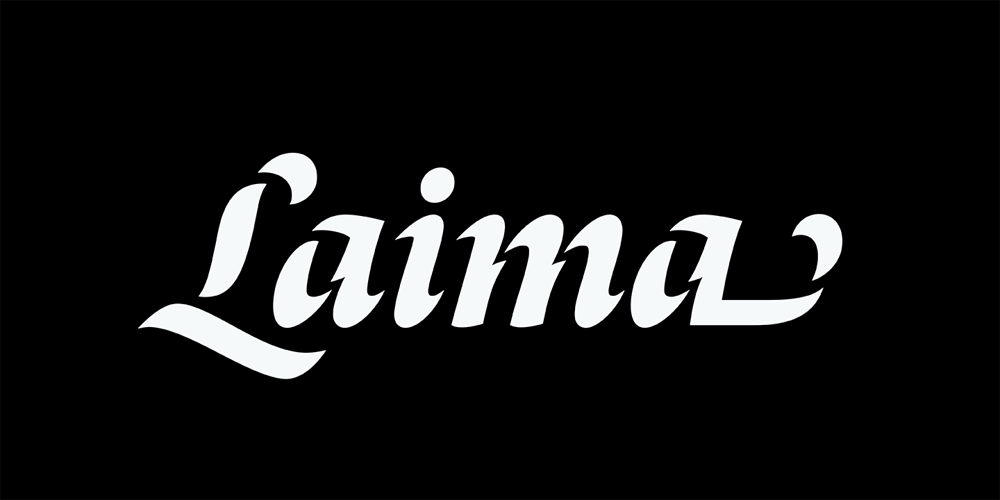
Laima Font Family was designed by Bogidar Mascareñas and published by TypeTogether. Laima contains 10 styles and family package options. Laima is the brush-formed stencil from Bogidar Mascareñas that will create an ovation for branding, album art, upscale venues, and packaging. If wide appeal, attention to detail, or international reach is necessary for your brand, consider Laima’s high-calibre design as your personal ambassador.The general font user is accustomed to stencil typefaces that have a brute look to them — industrial, mechanical, restrictive, or even militarised. Stencils are commonly used because they serve a function, like spray-painting over template letters, giving the reader a warning that must be heeded for safety, or a command to follow immediately. Wooden crates and grunge art are the medium and black or red paint are the norm. Laima, instead, creates a stencil from the world of calligraphy to turn all this on its head.Laima’s 12 stencil styles (six roman and six italic) use the junctures of calligraphic strokes as an opportunity to achieve an uncommon stencil effect, shifting to create unexpected shapes and the illusion of twisted, disconnected overlaps. Inspired by “Arte Nueva de Escribir”, an engravings book published by Francisco Palomares in 1776, Laima progressed well beyond its beginning as a Type and Media Master’s project at KABK, The Hague (NL). It sometimes required completely new character shapes to accommodate the space needed for clear diacritic marks, and was further enhanced with flourishes and alternates for liveliness and variety in individual or branded work.Laima’s italic begins with swashes and uses OpenType features to automatically turn them off with more than two successive capital letters. Use one swashed character for a drop cap, two for ligatured fun, turn them on or off at your discretion, or change the ascender length and swash shape to suit your creative need. With two styles of numerals and stylistic sets for final forms, Laima’s 12 styles and hundreds of Latin-based languages can turn simple words into an occasion that would immediately benefit high-class brands and special uses. Set that article title, release that new product, code your best-looking UI yet, letterpress that business card, and print that gourmet label. Whatever is next, Laima is the unexpected stencil partner to introduce it to an expectant world.